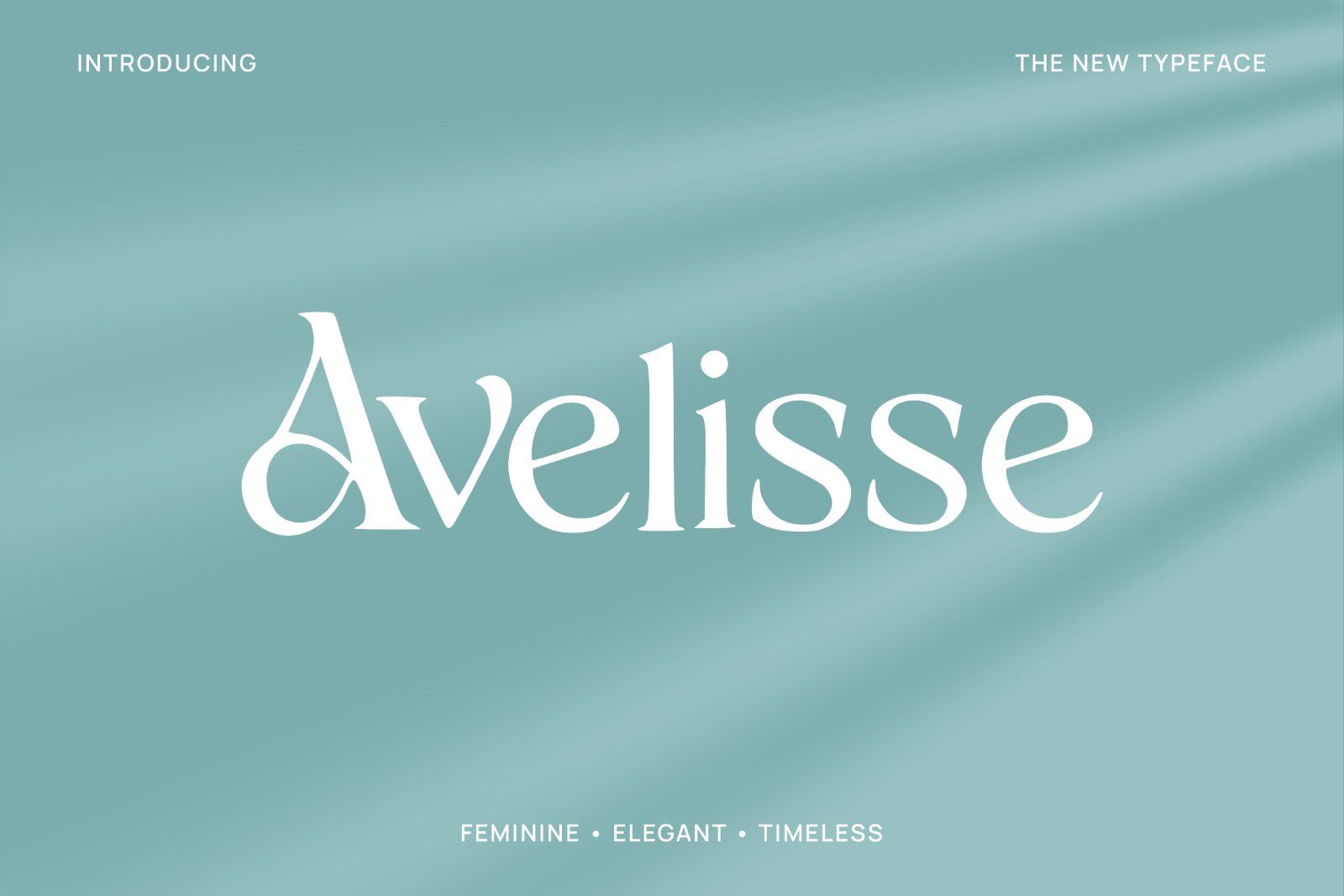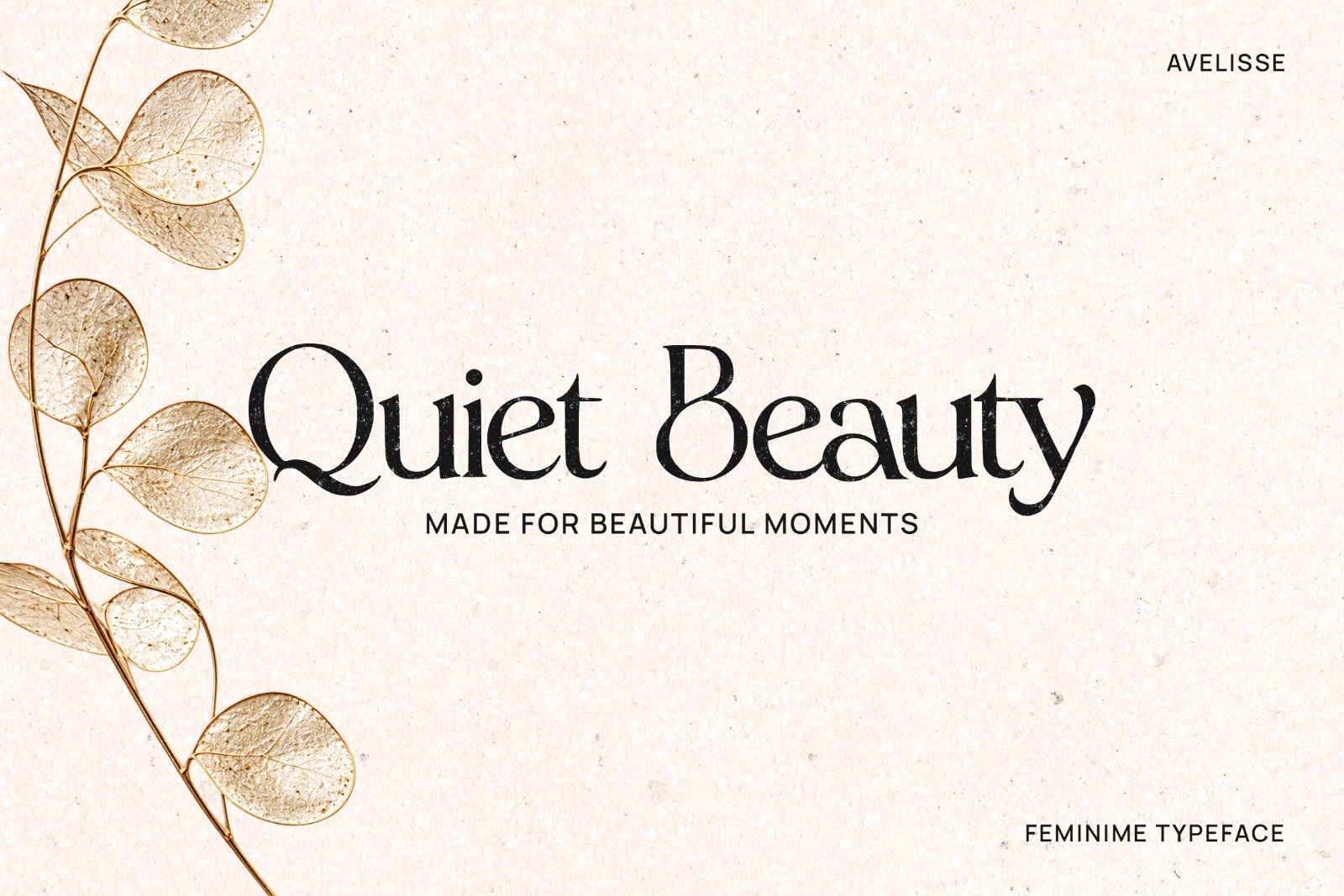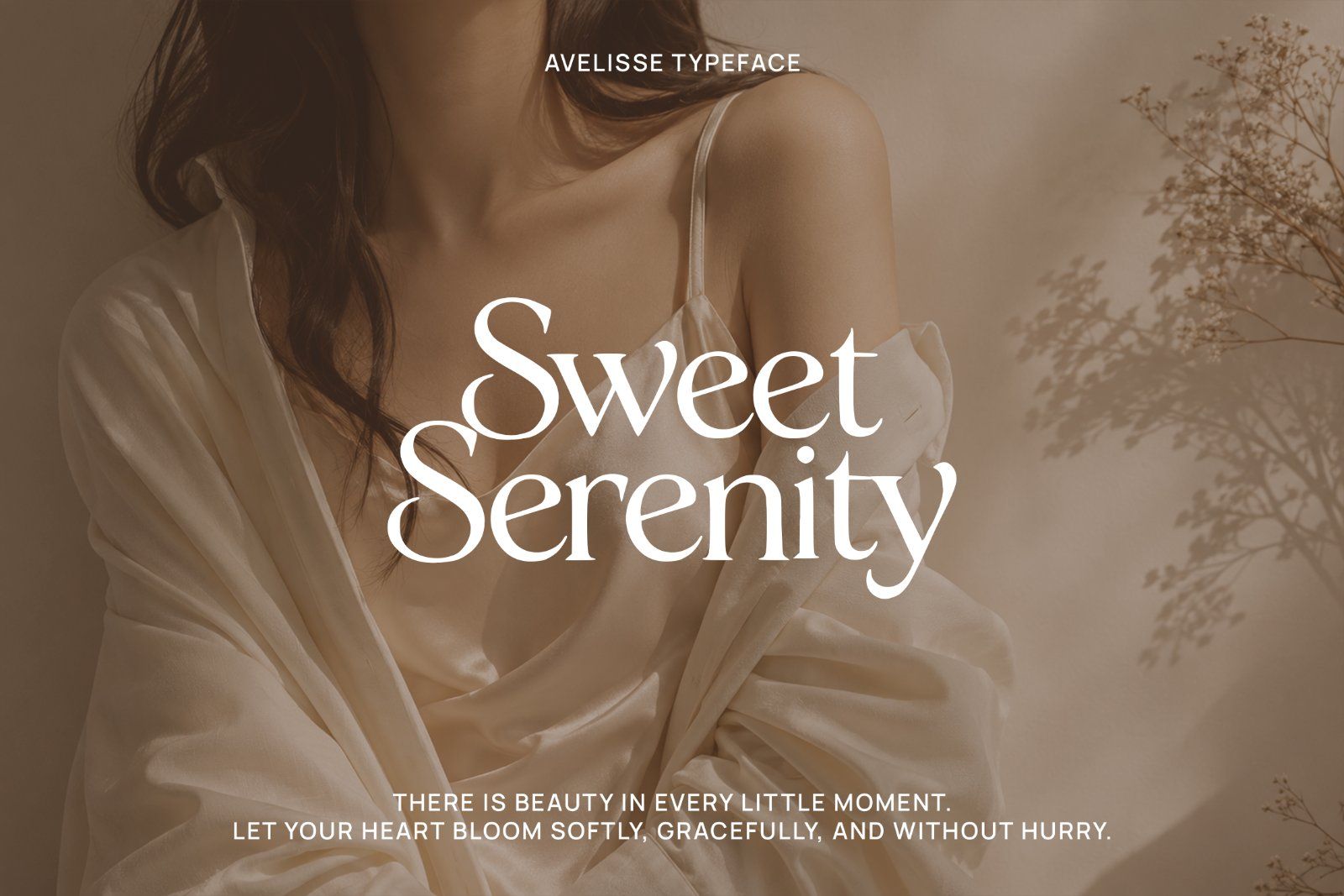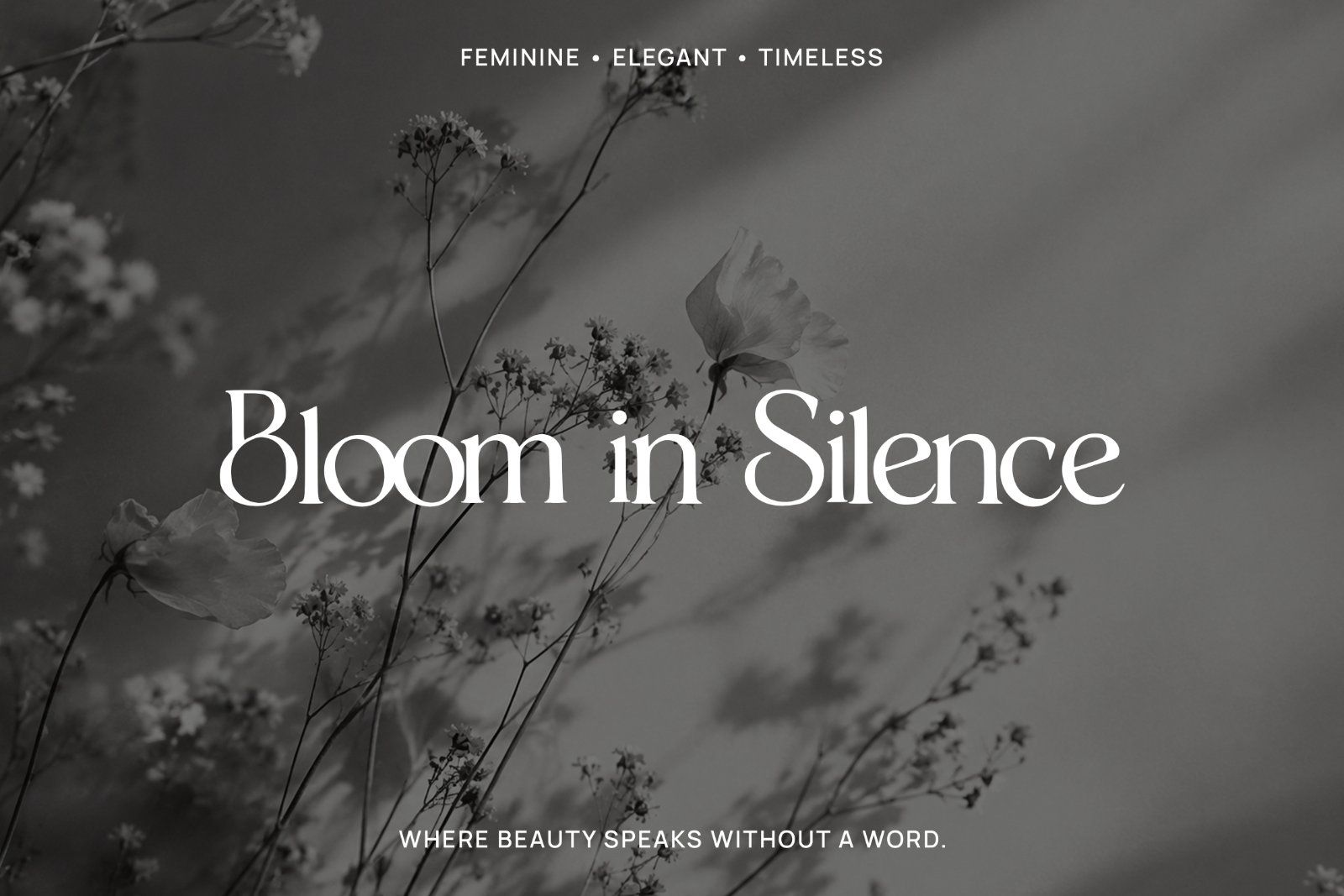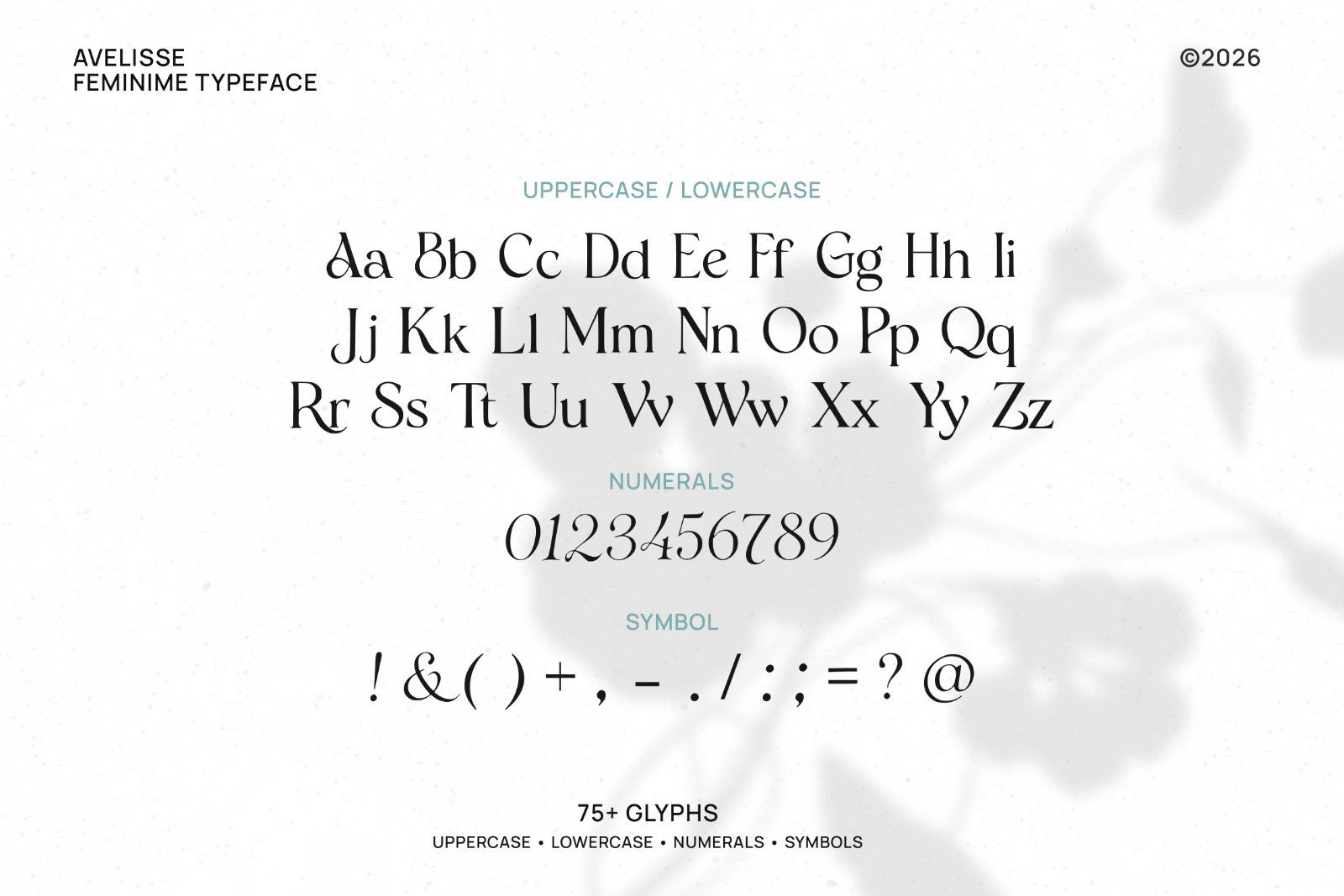
Avelisse – Elegant & Timeless Serif Typeface
Bring sophistication, luxury, and grace to your creative projects with Avelisse. This is a stunning, feminine serif typeface designed with smooth, high-contrast curves and unique stylistic details that exude modern elegance and timeless charm.
Whether you are designing high-end fashion branding, luxury product packaging, editorial layouts, wedding stationery, boutique logos, or aesthetic social media quotes, Avelisse delivers a chic and high-end aesthetic instantly.
• Full set of uppercase and lowercase letters
• Numbers, punctuation, and symbols
• Chic, high contrast serif lines with sophisticated curves